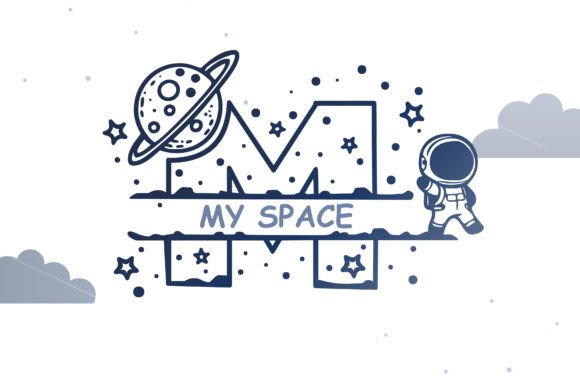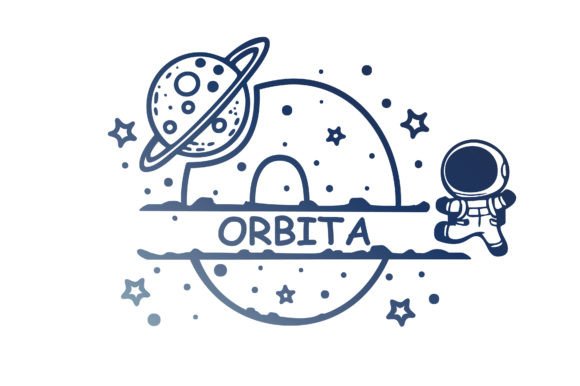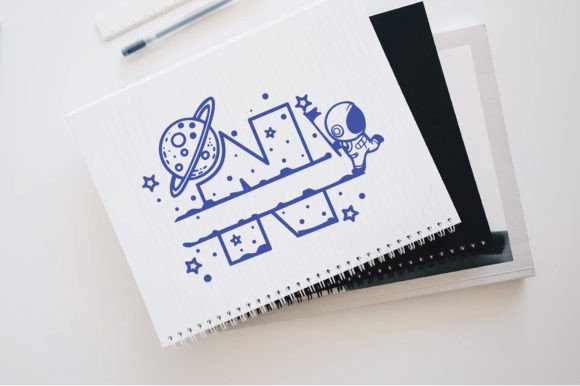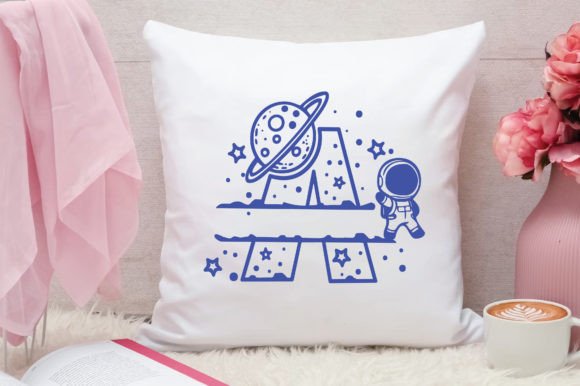
My Space Font
About the My Space Font
The wait is over! The incredible My Space Font is now available for your design toolkit. My Space decorative font is a charming and appealing typeface with a fun outer space theme. Featuring adorable astronaut characters, it adds a touch of whimsy to your designs. This font is perfect for posters, banners, t-shirts, mugs, and other delightful projects.
My Space Font’s playful personality makes it ideal for projects targeting children or young adults, particularly in contexts like children’s book illustrations, playful branding for toy companies, or fun event posters. It’s also well-suited for packaging designs for space-themed products or whimsical apparel. However, its decorative nature makes it less suitable for body text or applications requiring high readability, such as websites or user interfaces.
Pairing My Space Font effectively requires considering its whimsical energy. A clean sans-serif like Open Sans or a geometric sans-serif such as Futura would provide a strong contrast and improve readability in any supporting text. For a more cohesive yet distinct pairing, consider a rounded sans-serif font like Gill Sans for a touch of sophistication alongside the playful elements.
The font’s core personality is undeniably fun and friendly, making it a great choice for projects that need a lighthearted and approachable feel. Avoid using it where a sophisticated or serious tone is required.
My Space Font Usage Examples
My Space Font Example